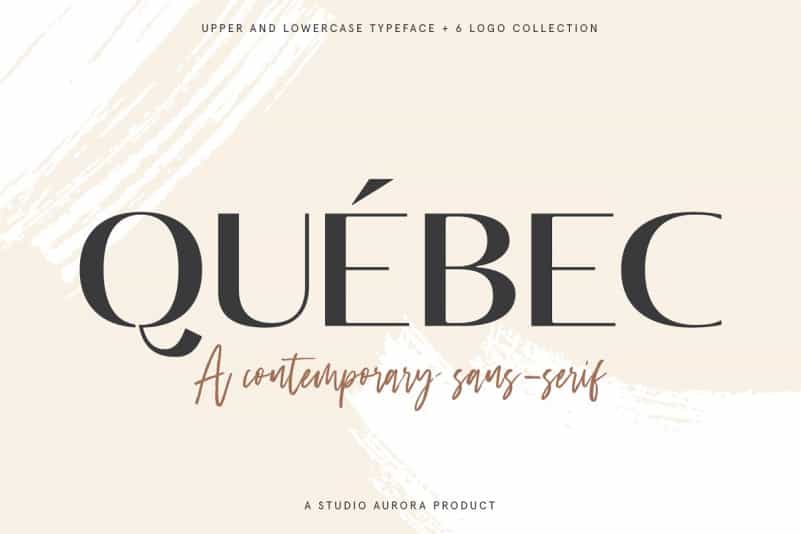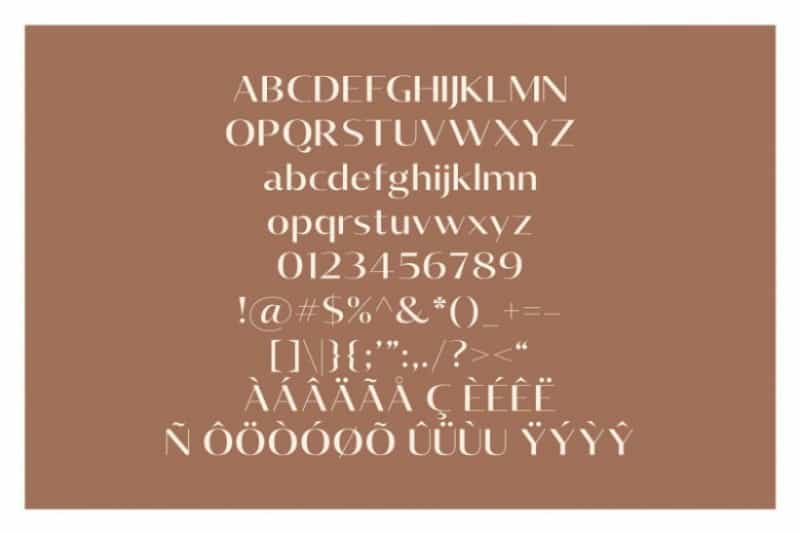
Quebec is a sans serif typeface with the appearance of clean stencils and reduced amount of ornamentation. Categorized as feminine forms which is ideal for logotype, fashion, and display. There is a certain sophistical freshness and Classism make it a perfect modern elegant sans-serif typeface.